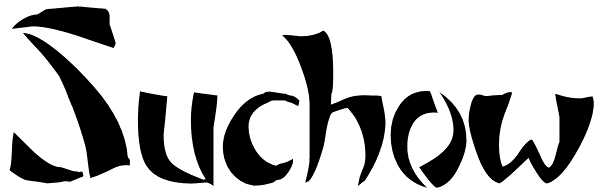
Suchow
Suchow was developed from a hand lettered storybook title by Willy Pogany. It's designed to give the feel of the Far East, with character shapes reminiscent of oriental brush lettering. The look of the characters is typical of lettering often used...